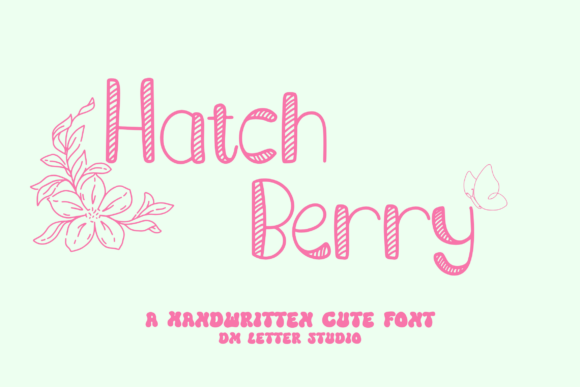
Have you ever stumbled upon a font that just makes you smile? For designers, finding that perfect font can be a game-changer. It’s the moment when you know you’ve found the missing piece to bring your design to life. For me, that moment came when I discovered the Hatch Berry Font.
This adorable handwritten font is designed to infuse your designs with warmth and a lighthearted vibe. With its soft, rounded strokes, every word takes on a cheerful handwritten personality that’s impossible to resist. Whether you’re working on kids’ branding, sticker designs, or greeting cards, the Hatch Berry Font is the perfect addition to create an instantly inviting atmosphere.
Hatch Berry Font Key Features
- Font Family: Hatch Berry is a sans-serif font family designed for digital use.
- Font Size: Supports font sizes from 8 to 72 points, making it suitable for a wide range of applications.
- Unique Characteristics: Hatch Berry features a unique blend of geometric and organic elements, giving it a distinctive and modern look.
Hatch Berry Font Review
As a designer, I was excited to dive into the Hatch Berry Font, and here’s my honest take on it.
- Unique aesthetic: Hatch Berry Font brings a fresh and modern vibe to your designs, perfect for brands looking to stand out.
- High legibility: Despite its unique style, the font is surprisingly easy to read, making it suitable for body text and headings alike.
- Perfect for creative industries: With its playful and whimsical feel, Hatch Berry Font is an excellent choice for designers, artists, and creative professionals.
- Limited font sizes: Hatch Berry Font is best suited for larger font sizes, as it can become pixelated and difficult to read at smaller sizes.
- Not ideal for formal or professional settings: While the font is perfect for creative industries, it may not be the best choice for formal or professional designs where a more traditional font is preferred.
Hatch Berry Font is a great addition to any designer’s toolkit. While it has its limitations, its unique aesthetic and high legibility make it an excellent choice for creative projects. If you’re looking to add some personality to your designs, Hatch Berry Font is definitely worth checking out.
The Hatch Berry font is a versatile and elegant font that can be used in a variety of applications, including:
– Business cards and marketing materials
– Social media graphics and blog posts
– Any design project where a unique and eye-catching font is needed.